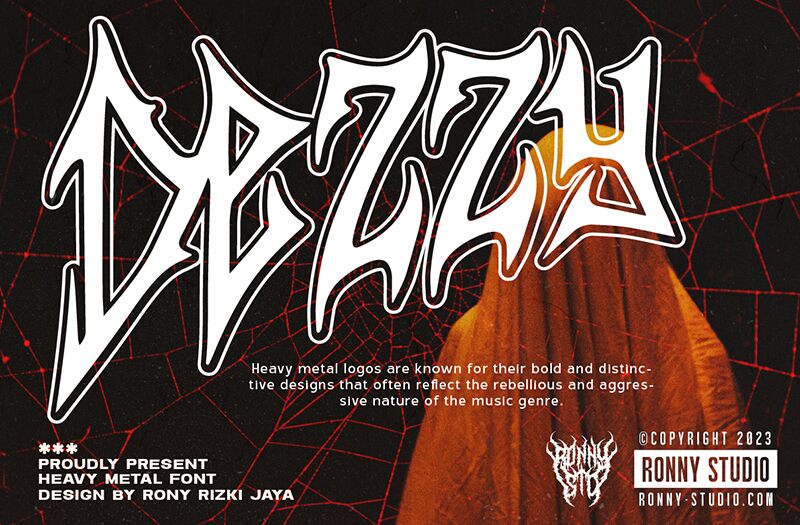
Dezzy
Dezzy, designed by Ronny Studio, captivates with its modern gothic flair. This font stands out through its captivating curves and sharp angles, creating a striking visual presence that feels both dynamic and elegant. The condensed structure enhances its boldness, making it perfect for impactful headlines and unique branding.
Its aesthetic appeal lies in the balance between tradition and contemporary style; Dezzy’s artistry evokes a sense of intrigue while remaining versatile for various design contexts. It thrives in uses ranging from eye-catching event posters to edgy album covers, seamlessly blending sophistication with a rebellious spirit. Whether conveying drama or creativity, Dezzy is an exceptional choice for designers seeking to make a memorable statement.